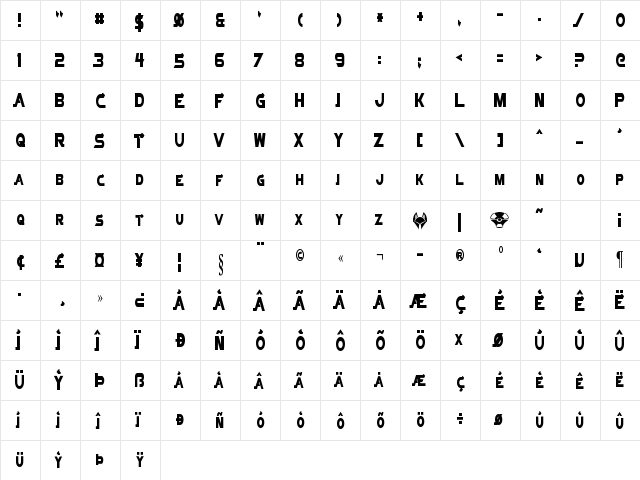
Vector Sigma Condensed Regular
| Designer | Neale Davidson |
Design Context for Vector Sigma Condensed Typeface
Vector Sigma Condensed is a composed and adaptable typeface that performs quietly and consistently across a wide range of design contexts. Its narrow stance lets it pack a punch even in space-constrained designs.